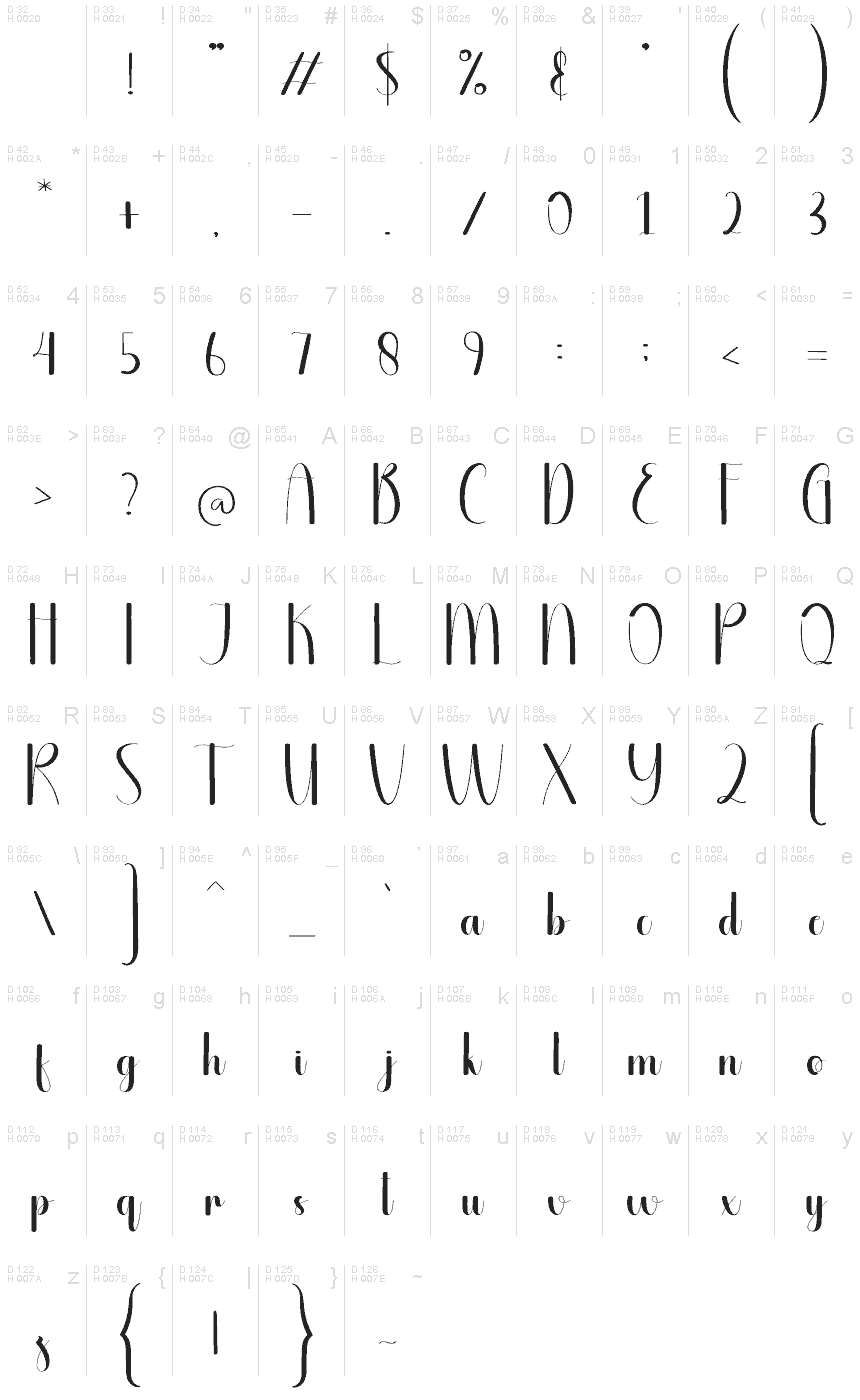
Busy
Busy font by Andi Moz is a free condensed calligraphy font, incorporating an elegant, flowing design that embodies sophistication. Its modern script appearance and expressive flair make it a standout choice for contemporary use.
Perfect for branding, invitations, packaging design, business cards, stationery design, magazine typography titles and texts – this versatile font also shines when used in posters and product labels. Use Busy in any project to capture its beautifully delicate style and capture the reader’s imagination at first glance!